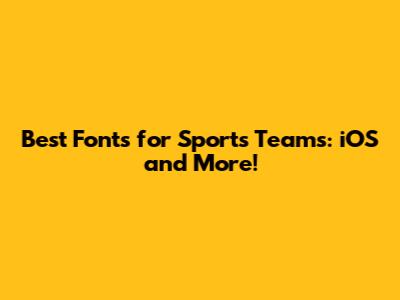
Choosing the right font for your sports team is super important, guys! It's not just about picking something that looks cool; it's about creating a brand identity that resonates with your fans and players. Whether you're designing jerseys, posters, or even your team's iOS app, the font you choose can make a huge difference. Let's dive into the world of fonts and see what works best for sports teams, covering everything from classic choices to modern, edgy styles.
Why Fonts Matter for Sports Teams
Fonts are a crucial part of your team's visual identity. Think about iconic sports brands like the New York Yankees or the Los Angeles Lakers. Their logos and wordmarks are instantly recognizable, and a significant part of that recognition comes from the fonts they use. A well-chosen font can convey strength, speed, tradition, or innovation – all qualities that sports teams want to project. Getting this right helps build a stronger connection with your fans, making merchandise more appealing and creating a cohesive look across all your team's branding materials. It’s about creating a lasting impression, and the font is a key player in achieving that goal.
Moreover, fonts play a pivotal role in ensuring readability and accessibility. Imagine a jersey with a font that’s stylish but impossible to read from a distance. That’s a no-go! The font needs to be clear and legible, whether it’s on a small smartphone screen or a large stadium banner. This is especially important for team names, player numbers, and any other text that needs to be easily identifiable. Selecting fonts with good spacing, clear letterforms, and appropriate weight is essential for effective communication. Also, consider how the font will look when applied to different mediums, such as print, digital displays, and embroidery. A font that looks great on a computer screen might not translate well to a physical jersey, so thorough testing is crucial. By prioritizing readability, you ensure that your team's message is effectively conveyed to everyone, regardless of the context.
Consistency in font usage across all platforms reinforces brand recognition. Using the same fonts on your website, social media, merchandise, and promotional materials creates a unified and professional image. This consistency helps fans easily identify and connect with your team, building brand loyalty and recognition. Think of it as creating a visual language that speaks directly to your audience. Inconsistency, on the other hand, can create confusion and dilute your brand's impact. Establishing a clear font strategy as part of your team's branding guidelines is essential for maintaining a cohesive and professional look. This strategy should specify which fonts to use for different purposes, such as headlines, body text, and logos, ensuring that everyone involved in creating content for your team is on the same page. By prioritizing consistency, you create a strong and recognizable brand that resonates with fans and reinforces your team's identity.
Top Font Categories for Sports Teams
Bold Sans-Serif Fonts
For a modern and impactful look, bold sans-serif fonts are the way to go. These fonts are clean, legible, and convey a sense of strength and energy. Think of fonts like Impact, Bebas Neue, or Montserrat. These are perfect for headlines, jerseys, and any application where you want to make a bold statement. Their simplicity ensures readability, even at a distance, making them ideal for sports arenas and digital displays.
When selecting a bold sans-serif font, consider the overall aesthetic you want to achieve. Impact, for example, is a classic choice that exudes power and dominance. Bebas Neue, with its tall and narrow letterforms, offers a more contemporary and streamlined look. Montserrat strikes a balance between modern and classic, making it a versatile option for various applications. Also, pay attention to the font's weight and spacing. A font that's too heavy can appear cluttered, while one that's too light might not stand out enough. Proper spacing between letters and words is crucial for readability, especially when the font is used in smaller sizes. By carefully considering these factors, you can choose a bold sans-serif font that perfectly captures your team's spirit and enhances its visual identity. Don't be afraid to experiment with different options to see what works best for your specific needs and preferences.
Strong Serif Fonts
Serif fonts, with their classic and authoritative appearance, can bring a sense of tradition and heritage to your team's branding. Fonts like Times New Roman, Georgia, and Playfair Display (for a more stylized option) can evoke a sense of history and prestige. These fonts are particularly well-suited for teams that want to emphasize their long-standing legacy or create a sense of timeless appeal. While they might not be as modern as sans-serif fonts, they can still be highly effective in conveying a sense of strength and stability. Serif fonts are especially useful for logos, formal documents, and situations where a touch of elegance is desired. They can also work well in combination with sans-serif fonts, creating a balanced and sophisticated visual identity.
When selecting a serif font, it's important to consider its readability in different contexts. Some serif fonts can appear cluttered or difficult to read at smaller sizes, especially on digital displays. Therefore, it's crucial to choose a font with clear and well-defined serifs. Also, pay attention to the font's weight and contrast. A font that's too light might not stand out enough, while one that's too heavy can appear overwhelming. Experimenting with different font sizes and weights is essential for finding the perfect balance. Furthermore, consider how the serif font will complement other design elements, such as colors and imagery. A well-chosen serif font can add a touch of sophistication and tradition to your team's branding, helping you create a lasting impression on your fans.
Dynamic Script Fonts
If you're looking to add a touch of flair and personality, dynamic script fonts can be a great choice. Think of fonts like Brush Script, Pacifico, or even a custom-designed script. These fonts can convey a sense of energy, movement, and excitement, making them perfect for teams that want to project a fun and engaging image. However, use these sparingly, as they can be harder to read and might not be suitable for all applications. They're best used for accent elements, such as slogans or celebratory messages, rather than for primary team names or player numbers. A well-chosen script font can add a unique and memorable touch to your team's branding, but it's essential to use it judiciously to avoid compromising readability.
When selecting a dynamic script font, prioritize legibility and ensure that it aligns with your team's overall brand identity. Some script fonts can be overly ornate or difficult to read, especially at smaller sizes. Therefore, it's crucial to choose a font that strikes a balance between style and clarity. Also, consider the font's weight and spacing. A font that's too thin might not stand out enough, while one that's too heavy can appear cluttered. Proper spacing between letters and words is essential for readability, especially when the font is used in longer phrases or sentences. Furthermore, think about how the script font will complement other design elements, such as colors and imagery. A well-chosen script font can add a touch of personality and flair to your team's branding, but it's important to use it strategically to enhance, rather than detract from, your overall message.